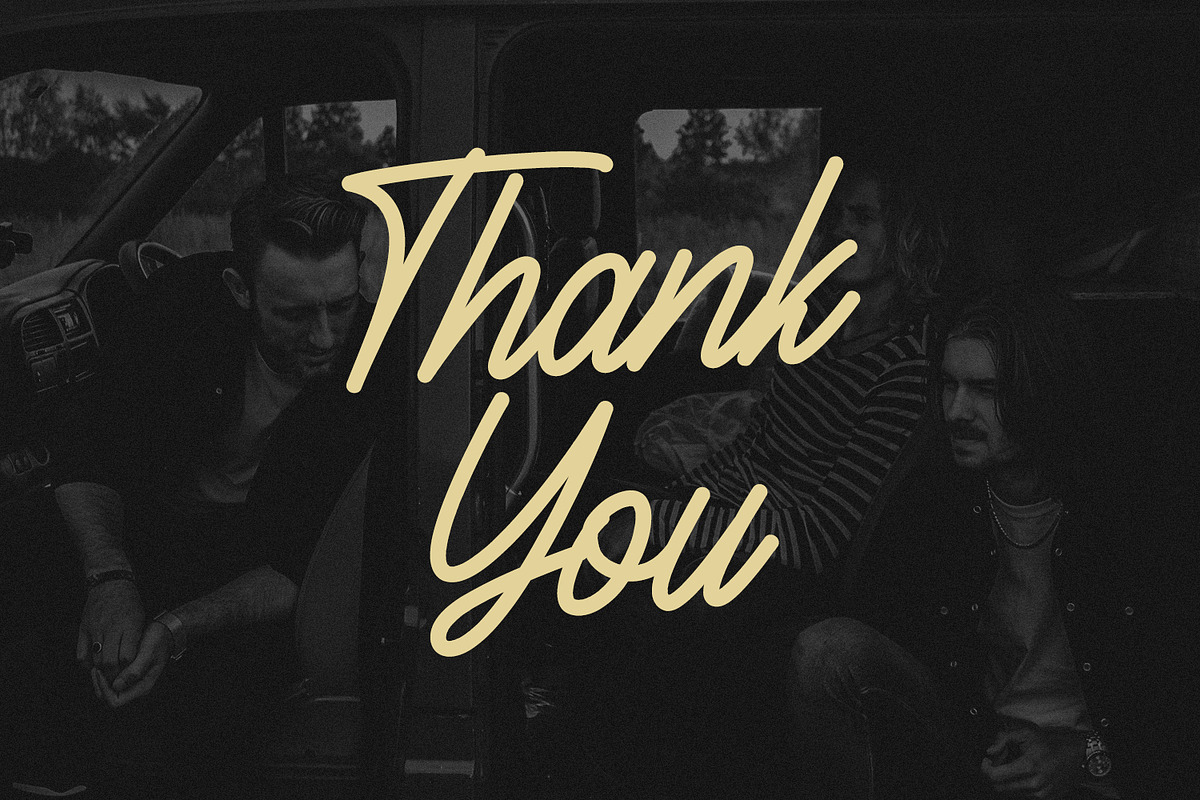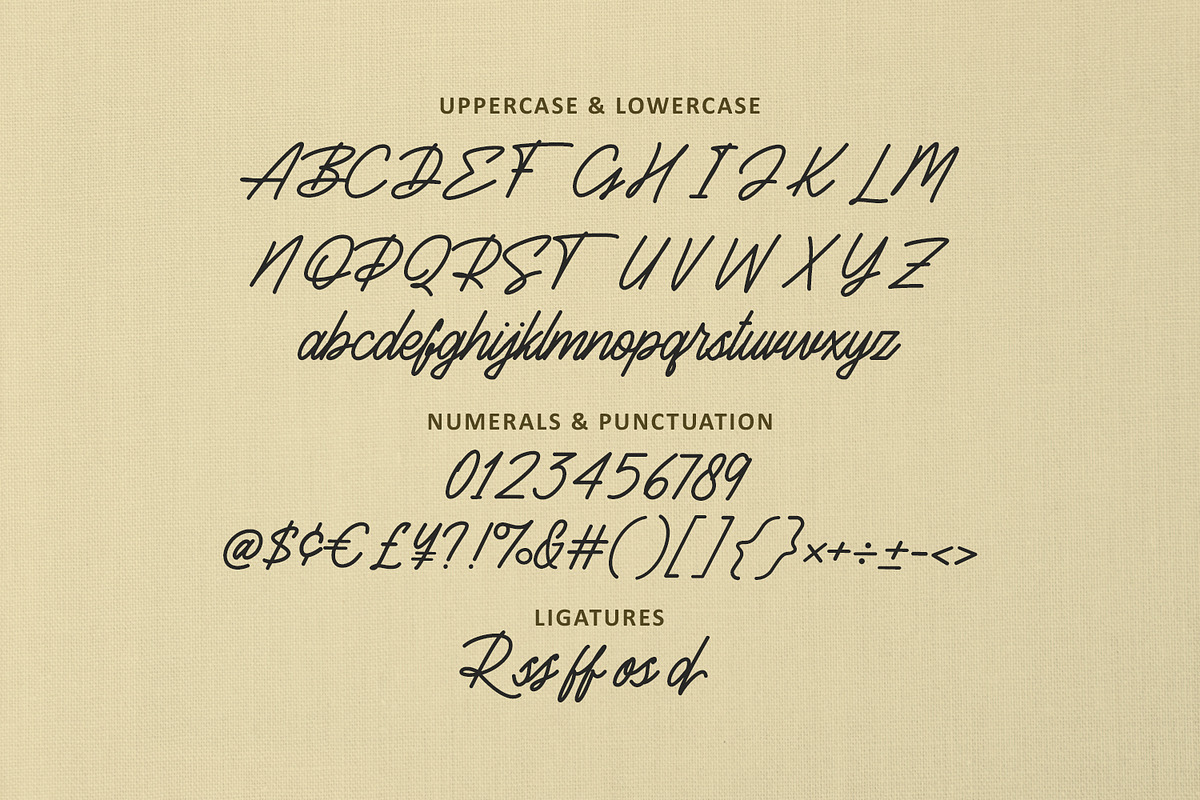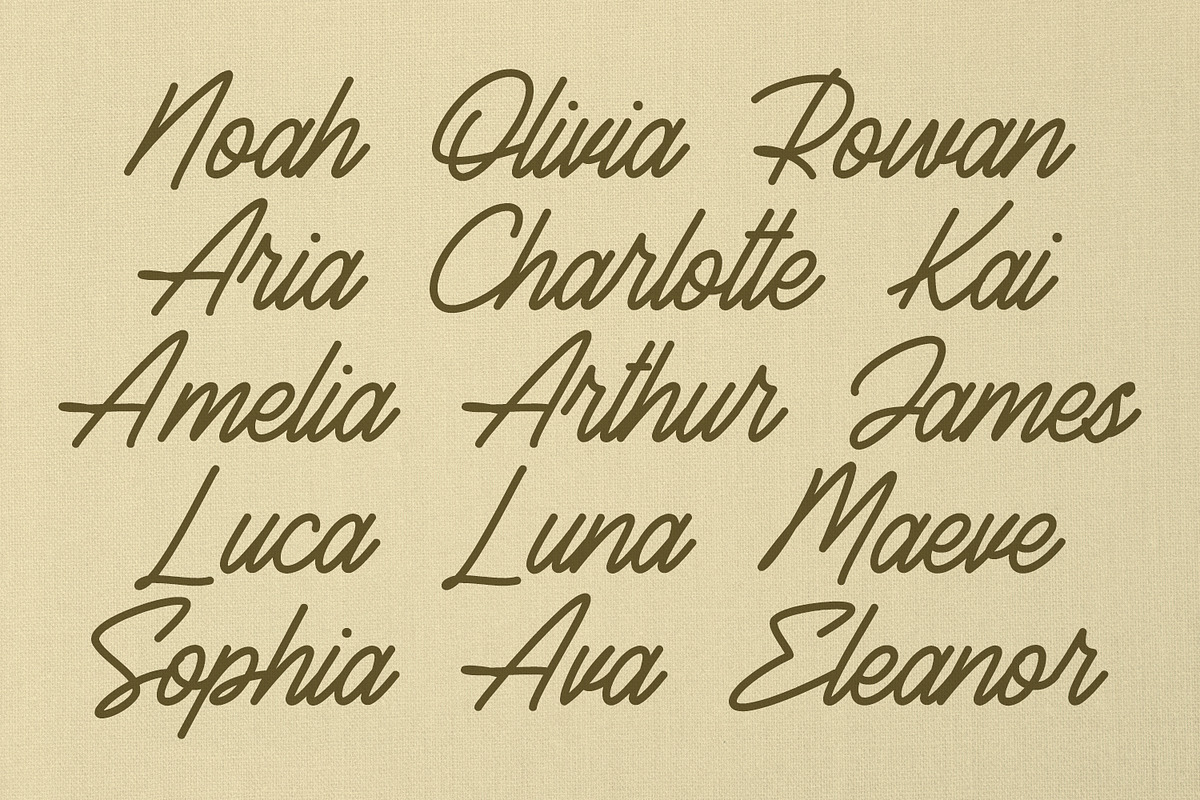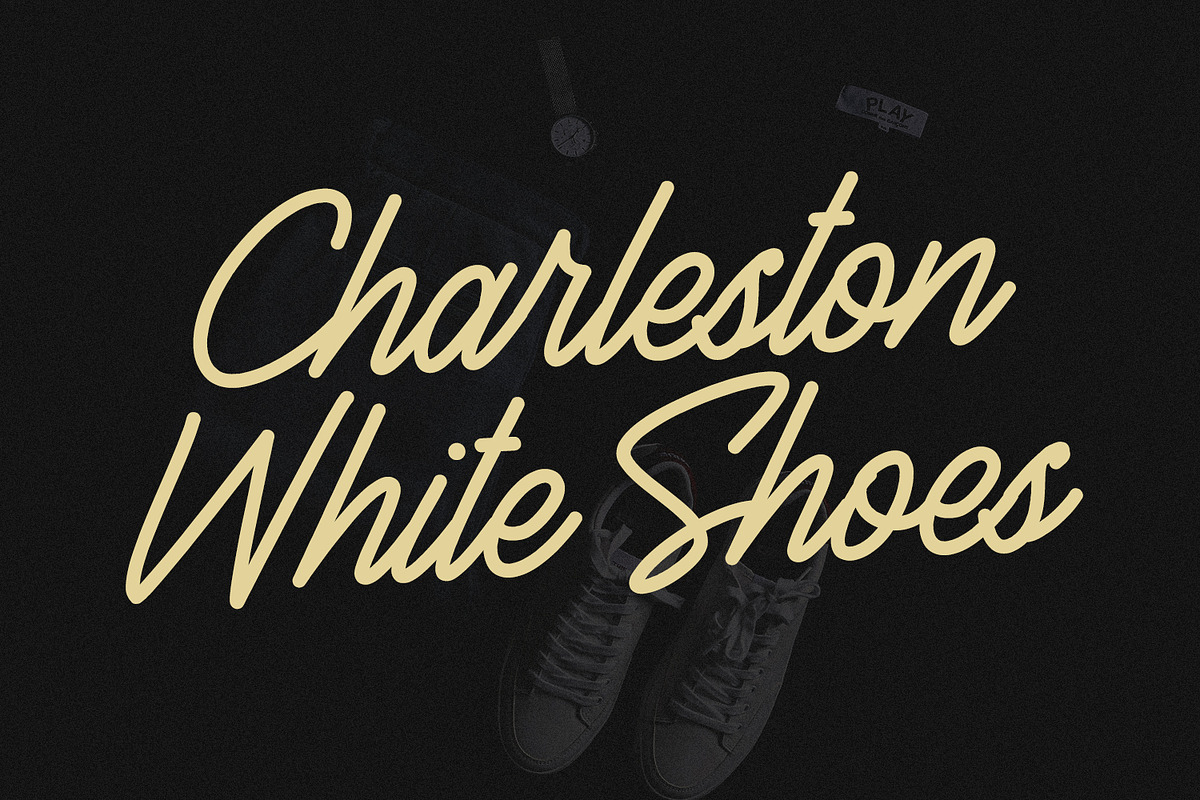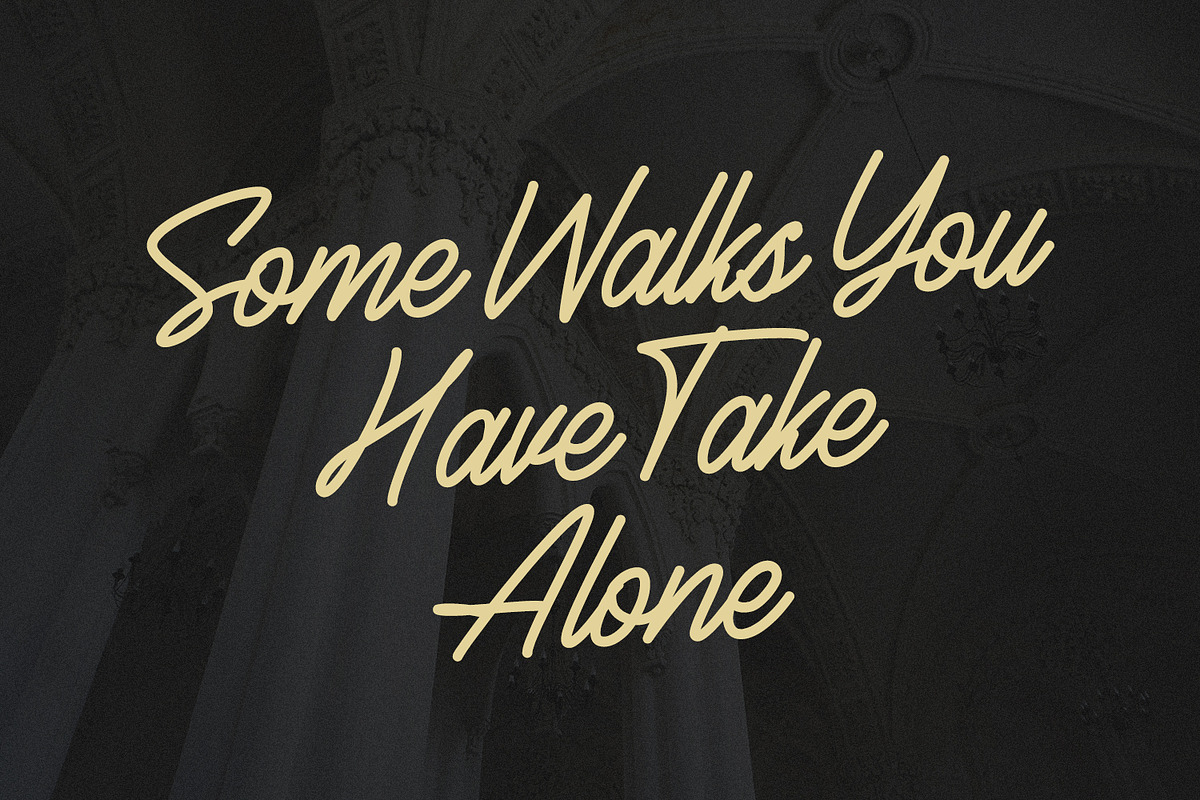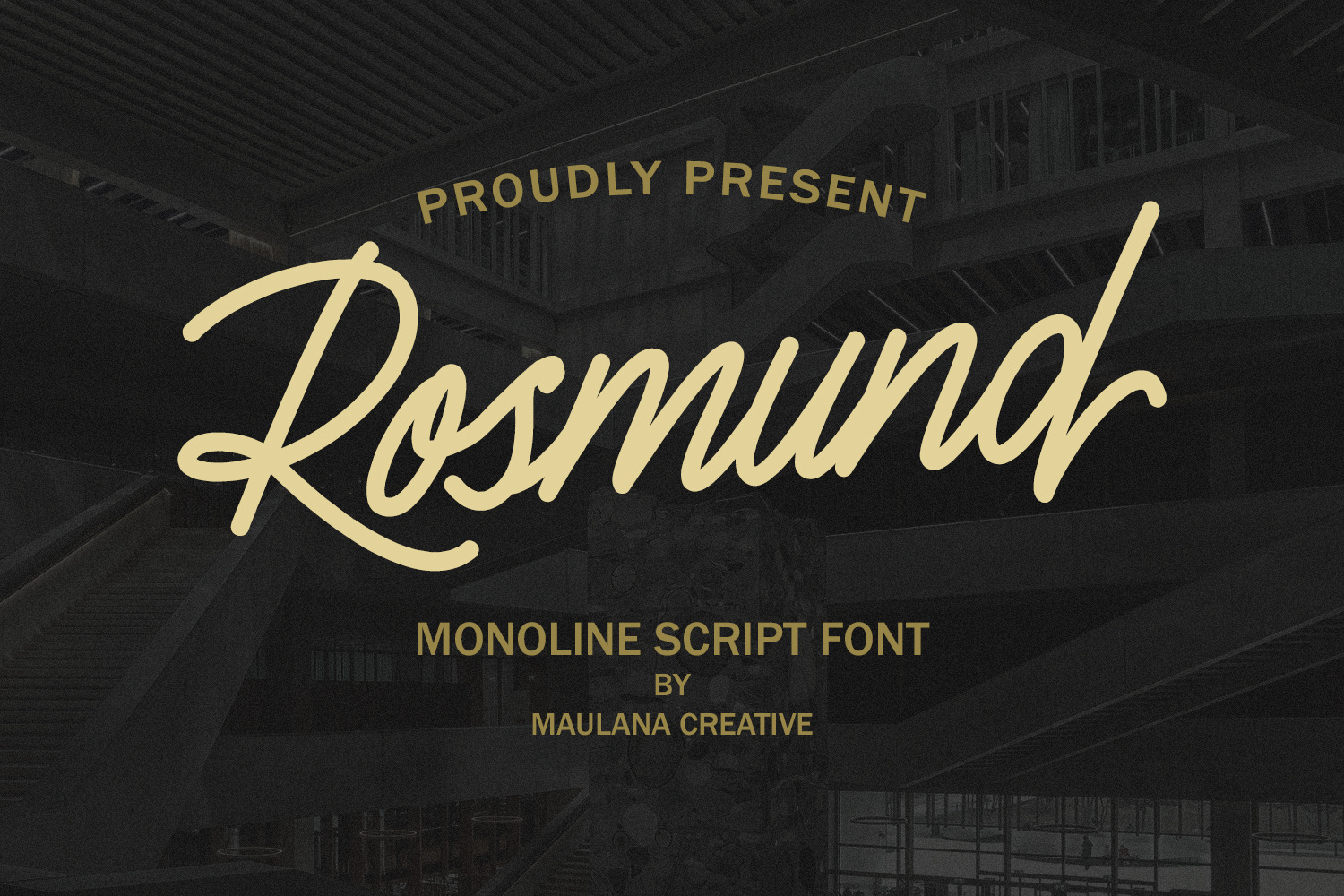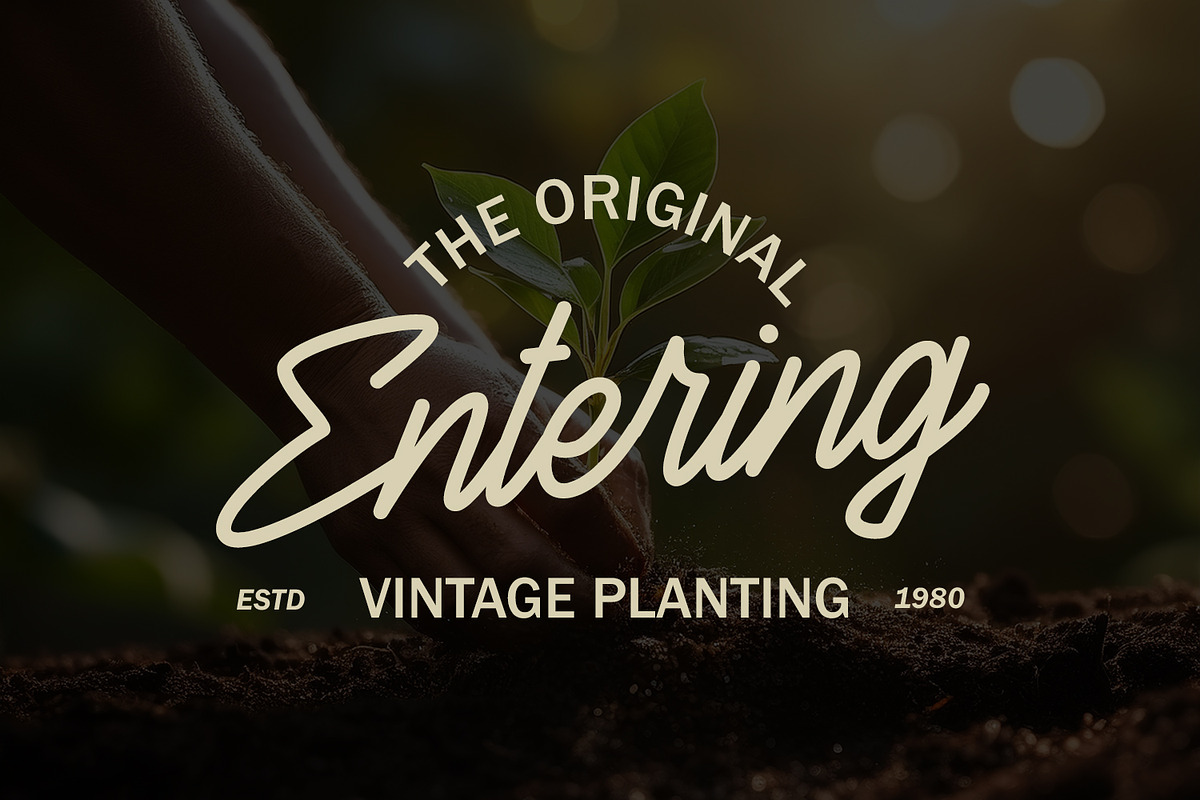
Rosmund Monoline Script Font
Rosmund casual signature script monoline font. Fun character with a bit of ligatures and alternate. To give you an extra creative work. Rosmund font is good for logo design, Social media, Movie Titles, Books Titles, a short text even a long text letter and good for your secondary text font with script or serif. Make a stunning work with Rosmund font.